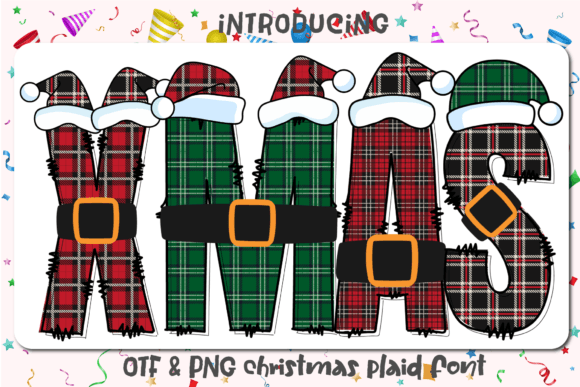
Introducing Xmas Font, the ultimate font family for all your holiday needs! Designed by the talented team at Nobu Collections, this colorful masterpiece is the perfect blend of creativity and festive charm. With its unique plaid print and adorable Santa Claus hat elements, Xmas Font is here to bring joy and excitement to your Christmas projects, children's activities, and school assignments.
Let your imagination run wild with Xmas Font's playful and authentic design. Its vibrant colors and eye-catching details instantly capture the spirit of the holiday season, making it an essential tool for all your creative endeavors. Whether you're designing business cards, crafting personalized gifts, or creating captivating social media posts, this font will elevate your work to new heights.
Picture the delight on your loved ones' faces as they receive a beautifully designed Christmas card featuring Xmas Font. Its charming Santa Claus hat elements add a touch of whimsy, spreading cheer and warmth with every word. Watch as your clients and colleagues are captivated by the unique and festive look of your business cards, leaving a lasting impression that sets you apart from the competition.
But Xmas Font isn't just limited to the holiday season. Its versatility allows you to explore various creative avenues all year round. Bring a touch of magic to children's books, posters, and invitations, making every project an immersive experience for young readers. With Xmas Font, you can effortlessly transport your audience into a world of imagination and wonder.
Unlock your inner artist and let Xmas Font be your creative muse. Its captivating charm and extensive range of characters make it a breeze to work with. Express your emotions, tell captivating stories, and convey your message with clarity and style. With its extensive language support and user-friendly interface, Xmas Font ensures that every designer, regardless of their skill level, can bring their visions to life.